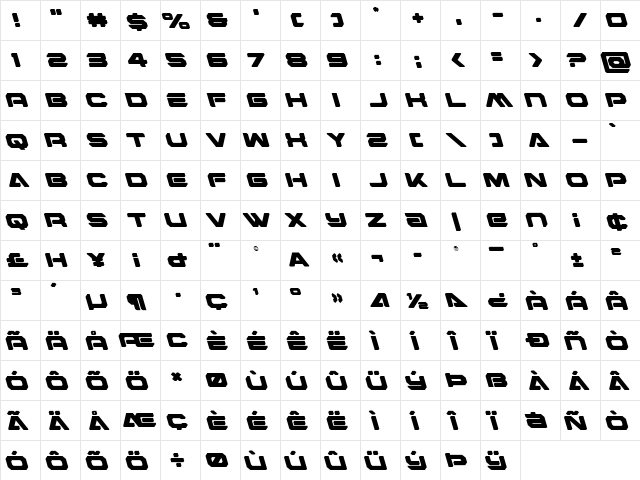
Hyper Viper Leftalic Italic Font Preview
Hyper Viper Leftalic Italic
Design Context for Hyper Viper Leftalic Typeface
Hyper Viper Leftalic is a composed and adaptable typeface that performs quietly and consistently across a wide range of design contexts. Its italic angle brings a sense of urgency and motion to the letterforms.